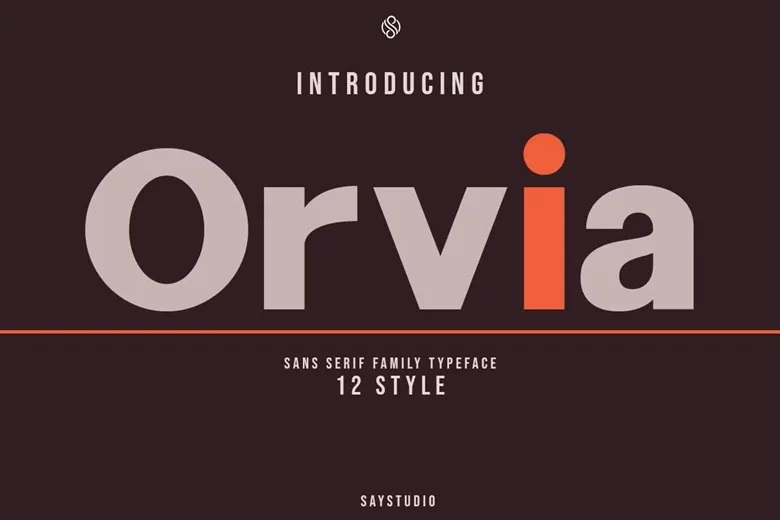
Orvia Font
Orvia is a contemporary sans serif font family that was created to provide clarity, equilibrium and modern day refinement to all design endeavors. Constructed in clean geometry and flowing proportions, Orvia provides a flexible visual language that is professional, confident and timeless, which is suitable in both business and creative usage. Orvia offers the ability to create complex layouts and heavy typographic hierarchy with its full family of 12 styles.
Bold, sophisticated subheadings, clean body text, and everything in between merge to make effective and smooth designs. Its indifferent but contemporary nature enables Orvia to fit perfectly with branding structure, editorial designs, user interfaces, and digital products. Orvia is designed to suit designers who are conscious of accuracy and utility.
The letterforms are balanced, the spacing is regular, and the readability is great, thus depending on print and screen. Orvia provides a clear and professional typeface whether you are developing a brand identity, designing marketing materials, or creating modern web and app interfaces.